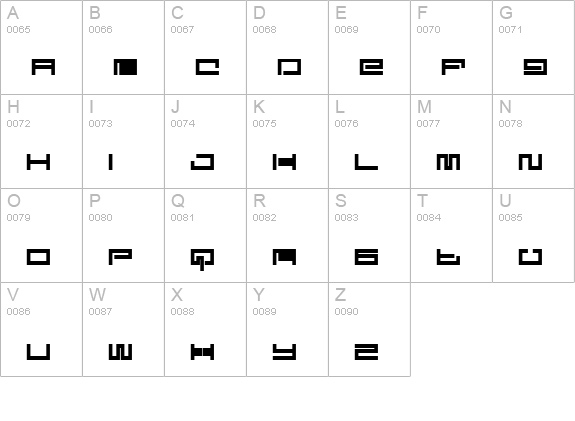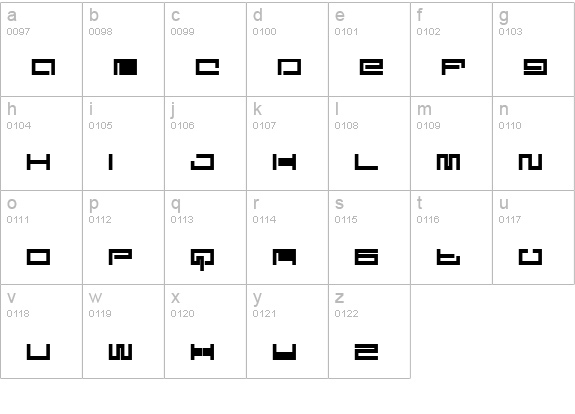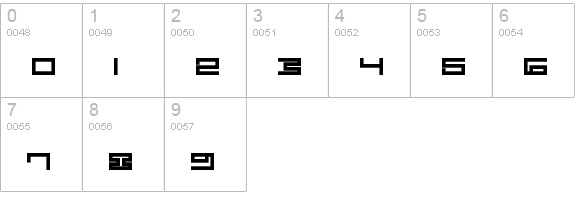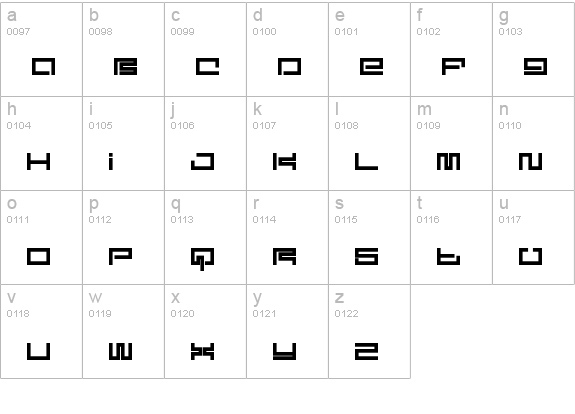
Digit Font Details
Digit font is a sleek and modern typeface that effortlessly combines elegance with a touch of digital flair. Its sharp, clean lines and geometric shapes make it perfect for a wide range of design projects, from branding to digital displays. The versatility of Digit font allows it to be used in both professional and creative settings, making it a must-have for any designer looking to make a bold statement. What's even better is that Digit font is completely free to download at FontsMarket.com. This means that you can elevate your designs without breaking the bank. So why wait? Download Digit font now and start creating stunning visuals that are sure to impress.